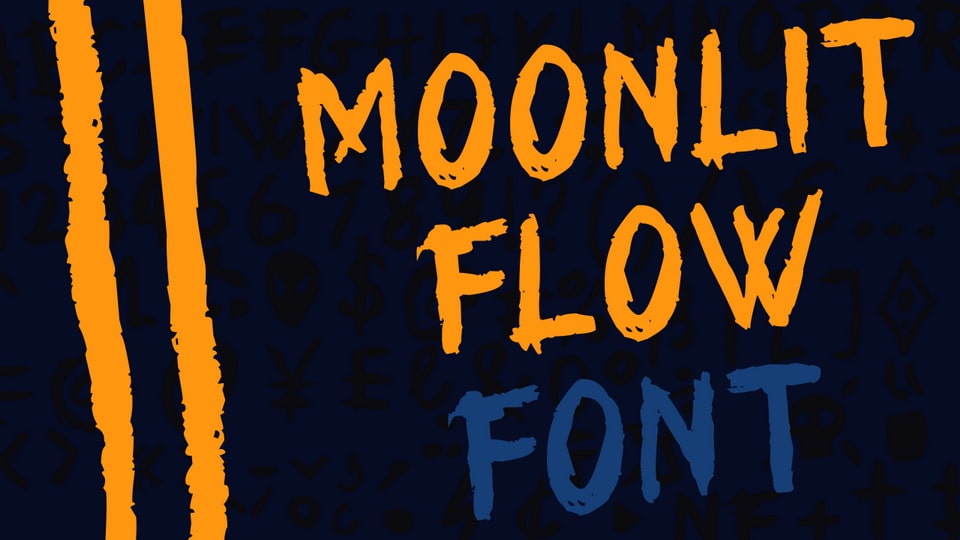
Download Moonlit Flow font, a bold and untamed hand-crafted brush typeface with a raw, grungy attitude with its rough strokes and natural imperfections.